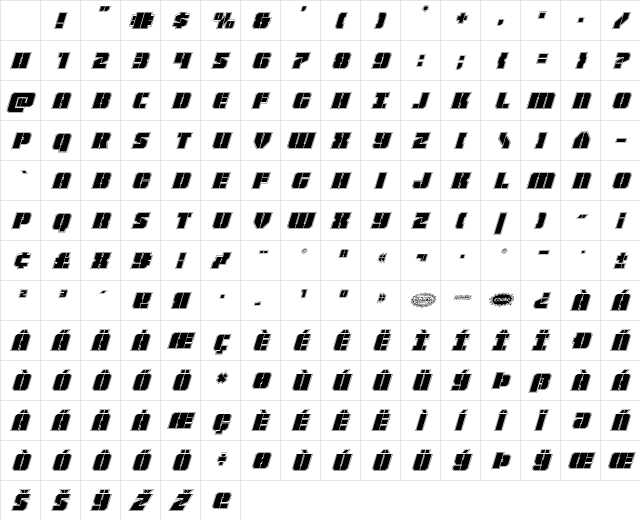
Warp Thruster Academy Italic
Design Context for Warp Thruster Academy
Warp Thruster Academy is a composed and adaptable typeface that performs quietly and consistently across a wide range of design contexts. The slanted form adds forward momentum and visual energy.
Pro Tip: Use Warp Thruster Academy for emphasis, pull quotes, and subheadings where its slanted energy can add rhythm to the layout.